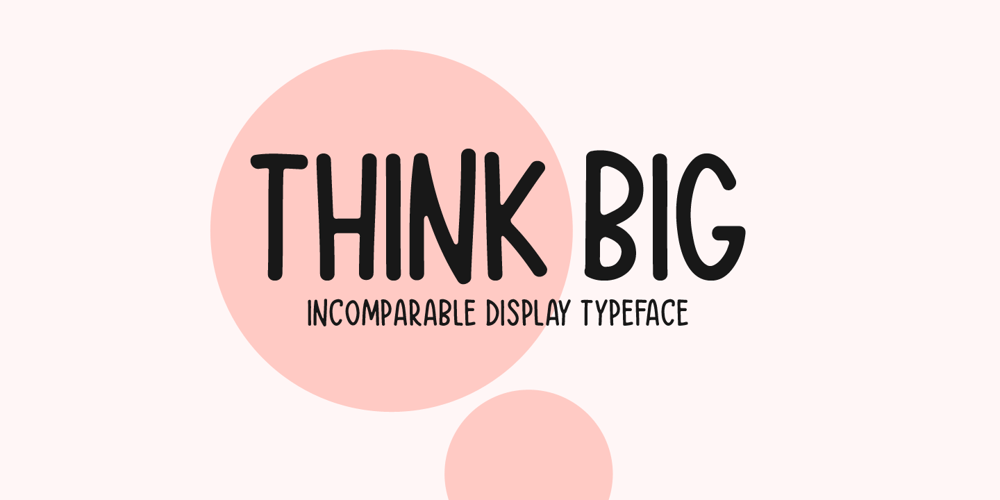
Think Big Font Family was designed by Md Shohail Bhuian and published by Seemly Fonts. Think Big contains 1 styles and family package options. Think Big is a unique display font. Whether you’re using it for crafting, digital designing, presentations, or greeting card making, it’s perfect!Fall in love with its incredibly versatile style and use it to create spectacular designs!